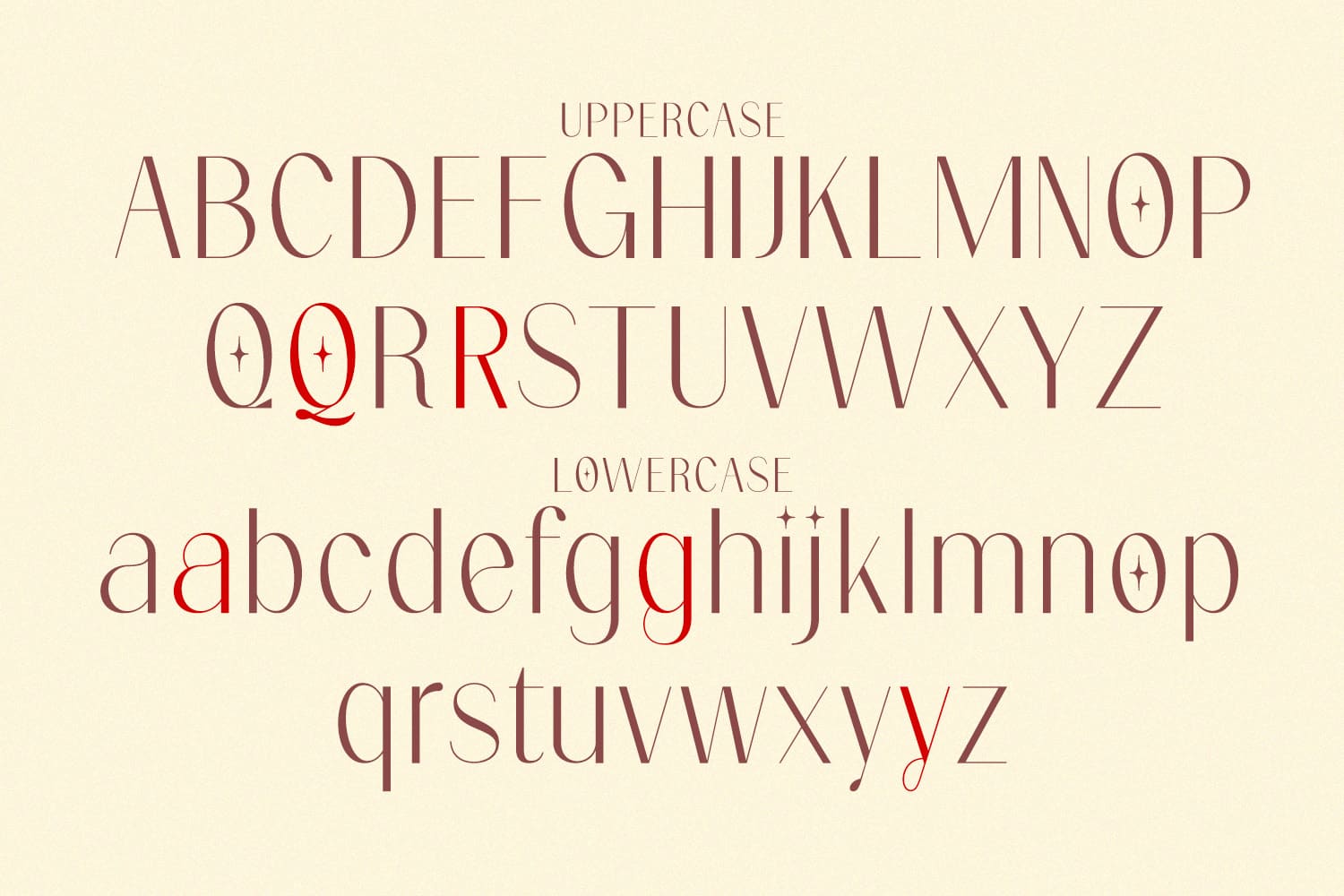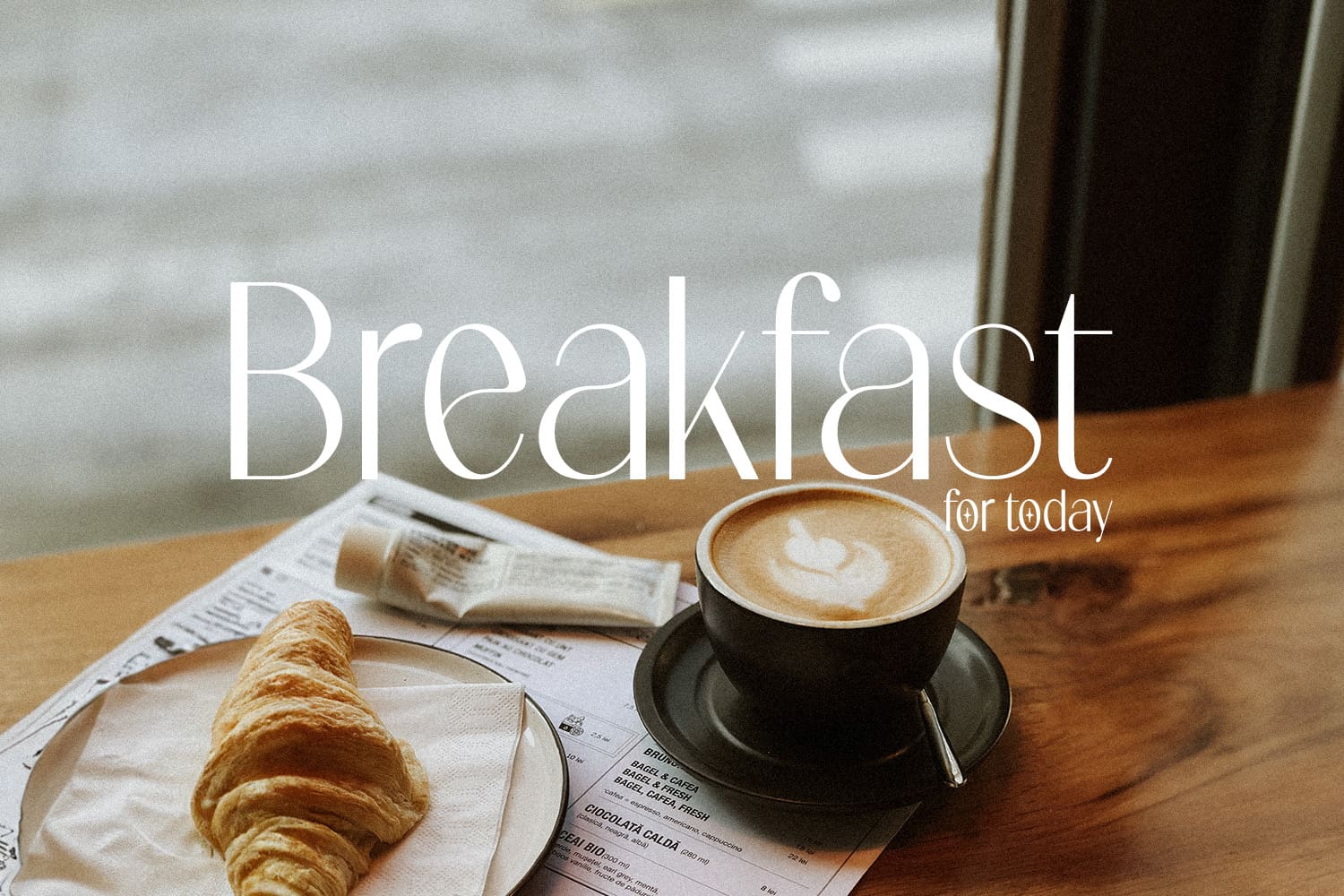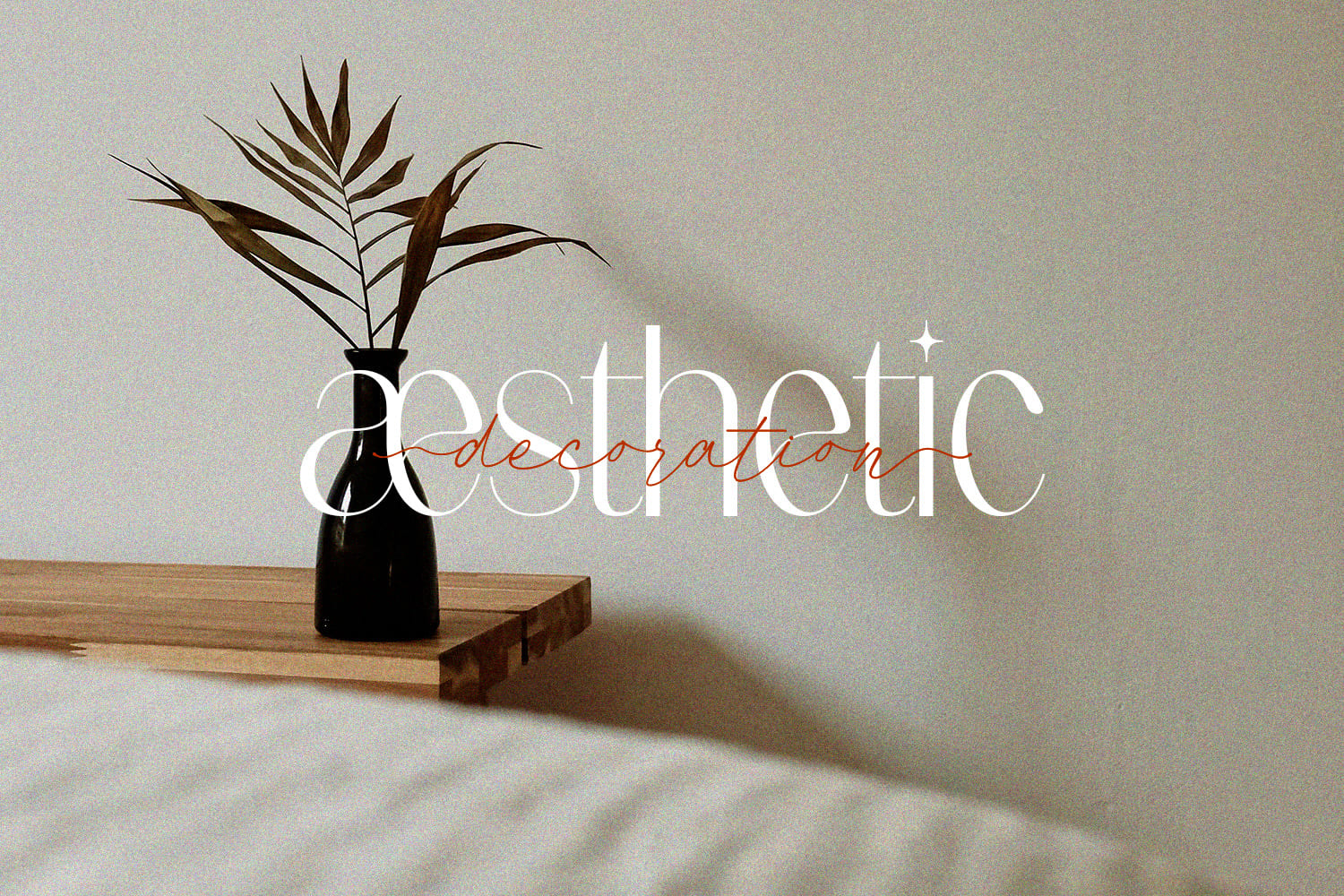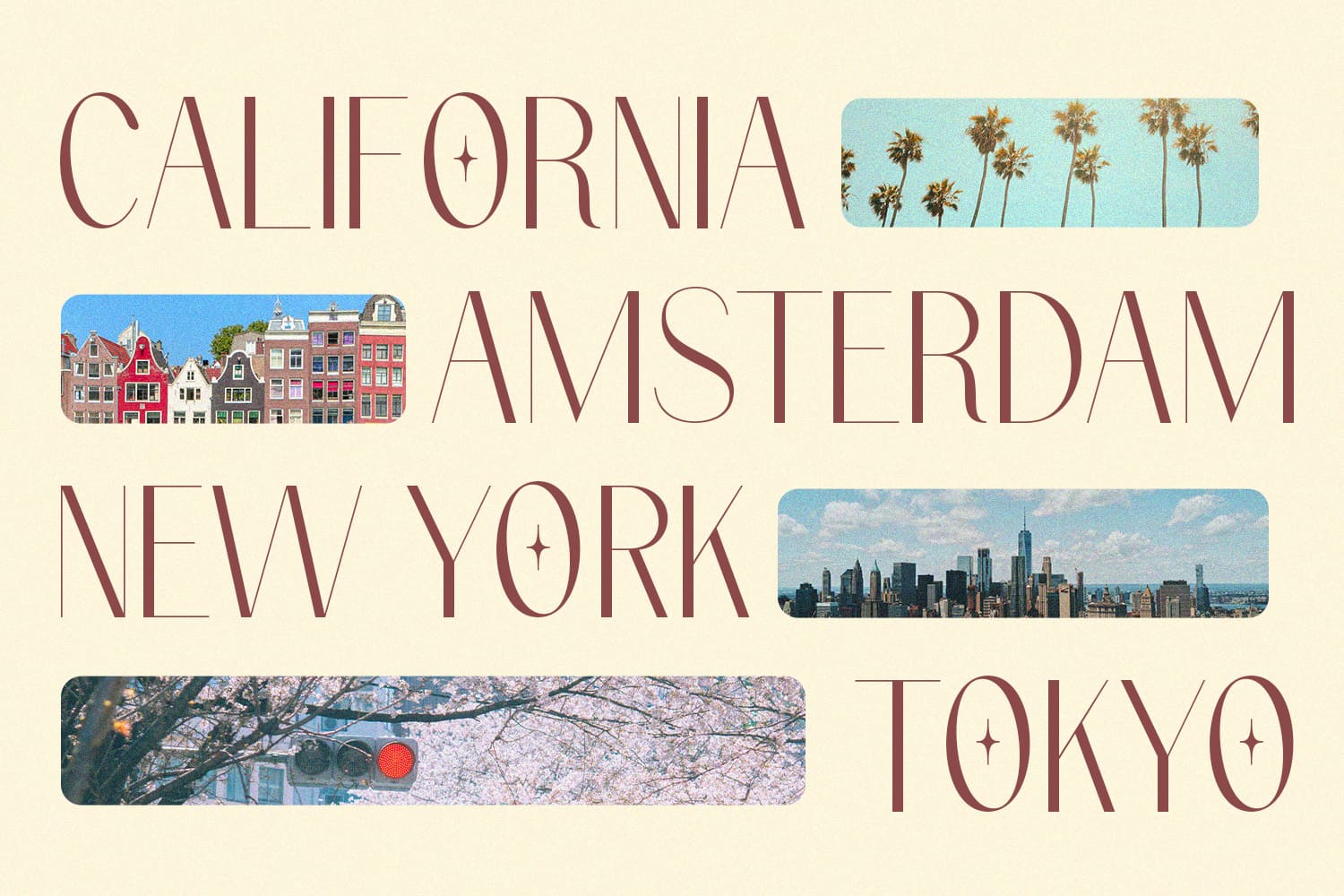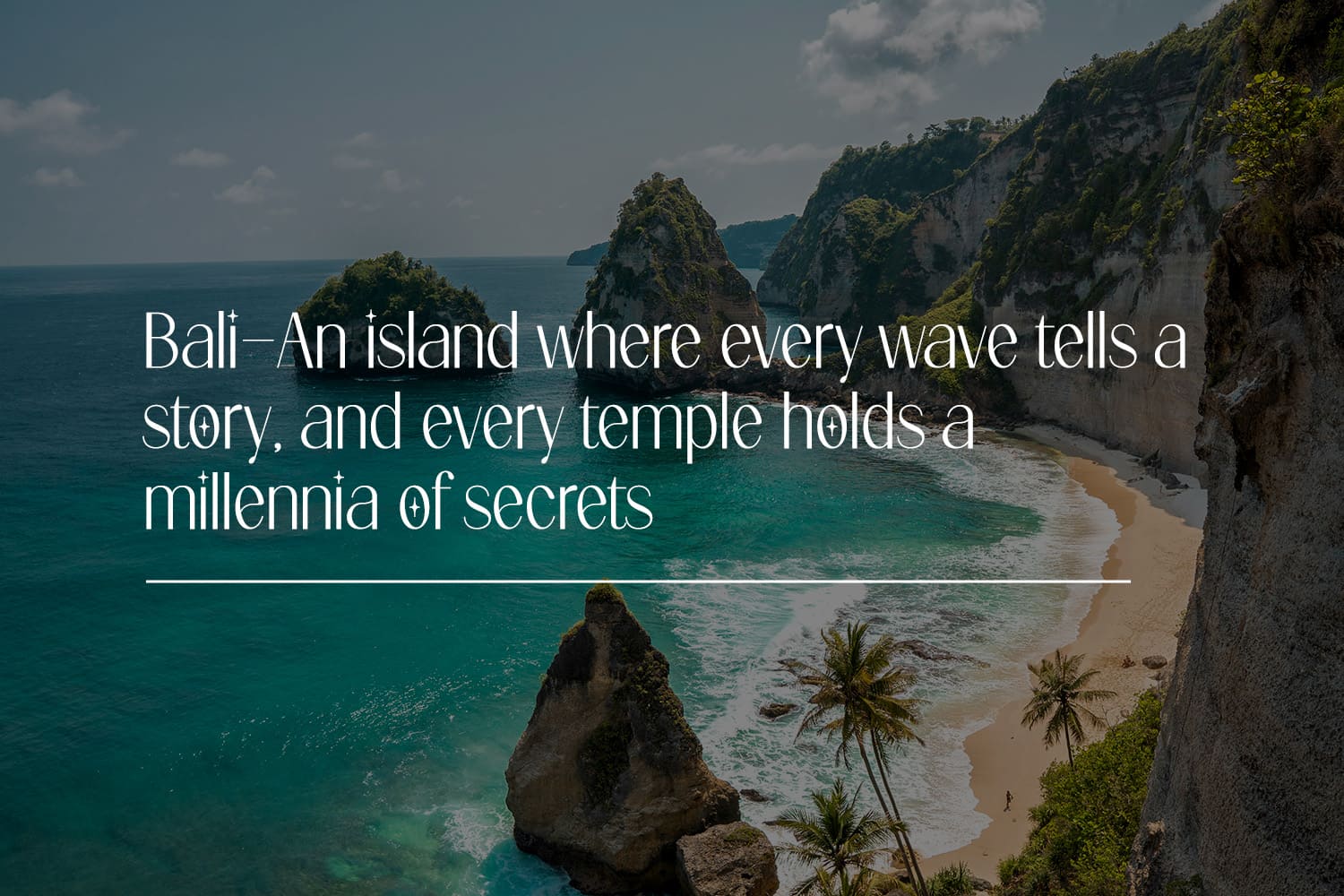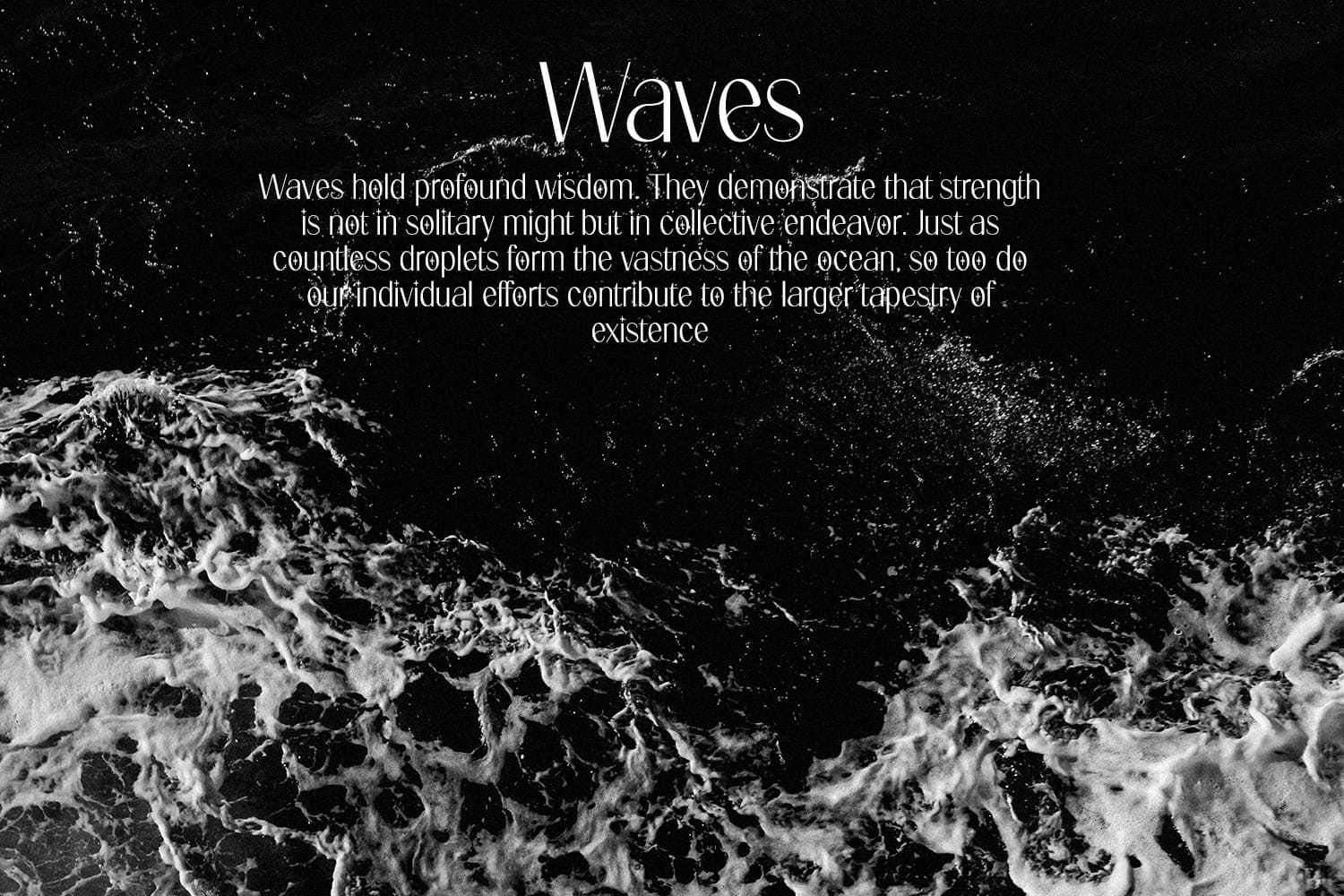
Volianchy
Introducing Volianchy is a modern sans serif font designed for the discerning user in mind. This typeface draws inspiration from contemporary design trends, while retaining a timeless essence that ensures its relevance in any era.